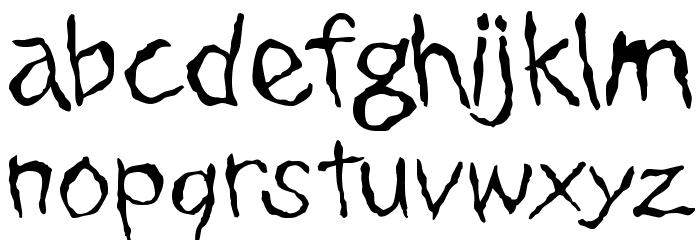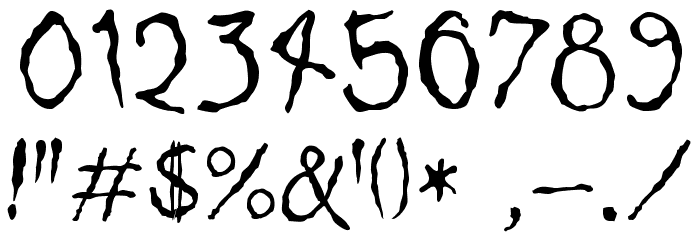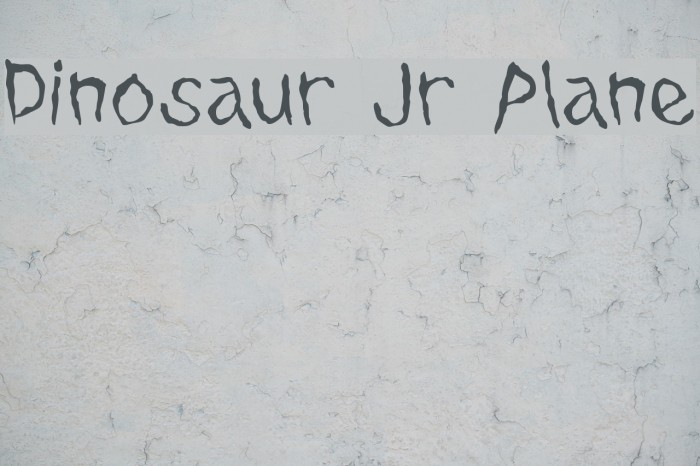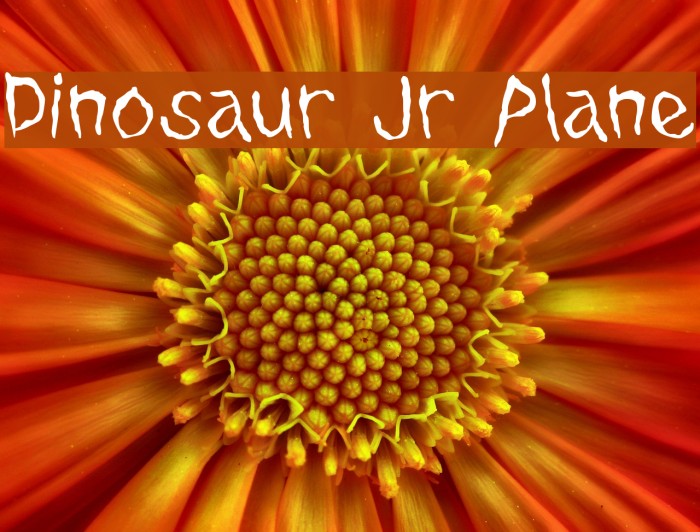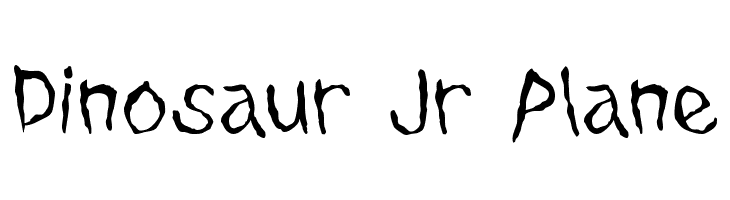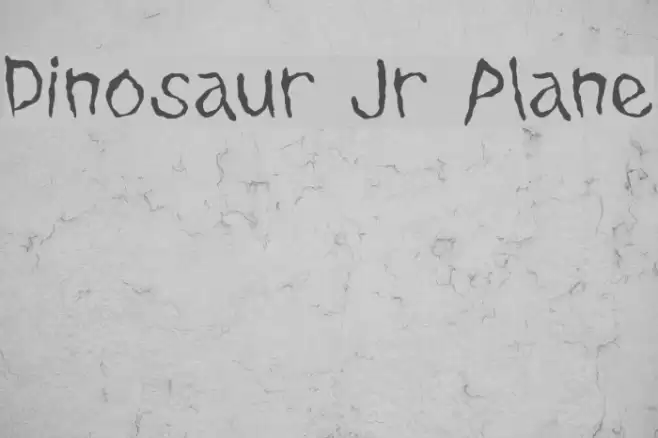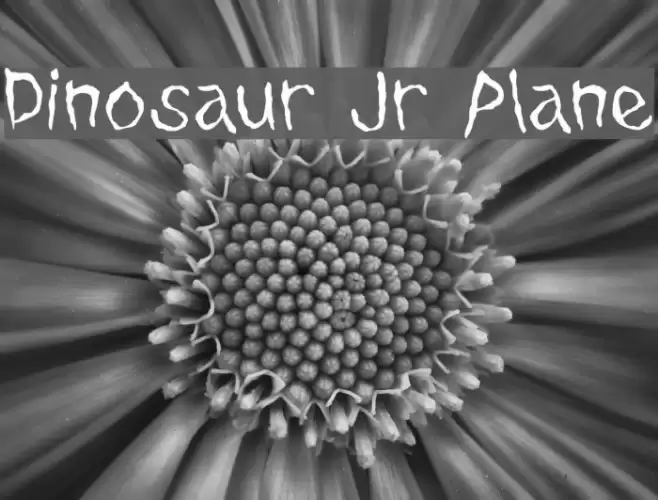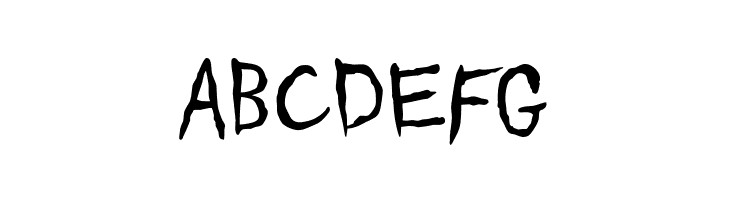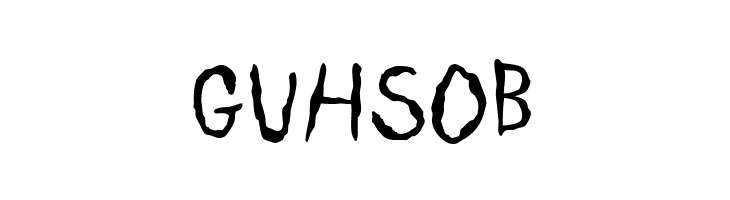
Dinosaur Jr Plane Font
This font features a rugged, hand-drawn style that evokes a sense of raw energy and creativity. The uneven strokes and irregular shapes give it a distinctive, organic appearance, reminiscent of graffiti or hand-painted signage. Each character is unique, with varying thicknesses and angles, contributing to its dynamic and expressive nature. The font's playful yet edgy aesthetic makes it suitable for projects that aim to capture attention and convey a sense of individuality. Its bold and artistic flair is perfect for designs that require a touch of personality and unconventional charm.
A rugged, hand-drawn font with a dynamic and expressive style.
- Proposed Projects: Ideal for album covers, posters, street art-inspired designs, and creative branding projects.